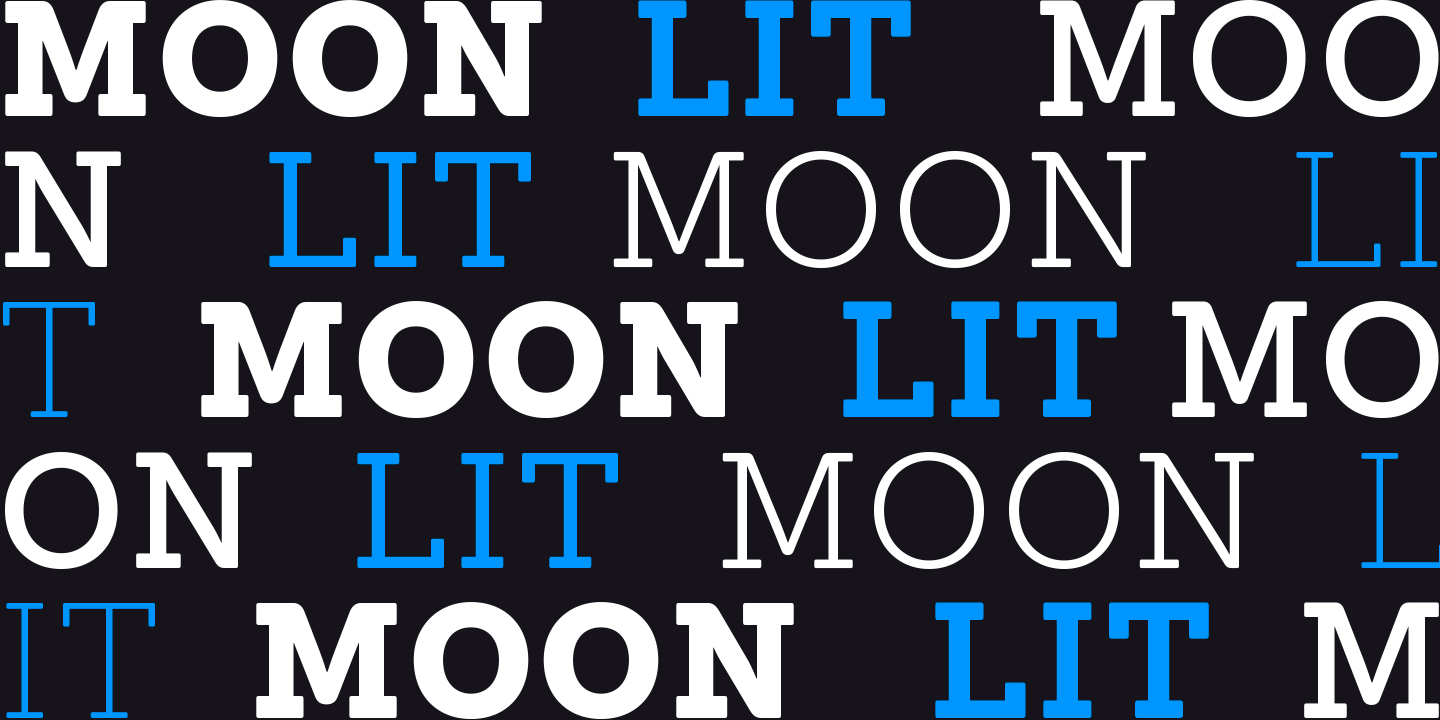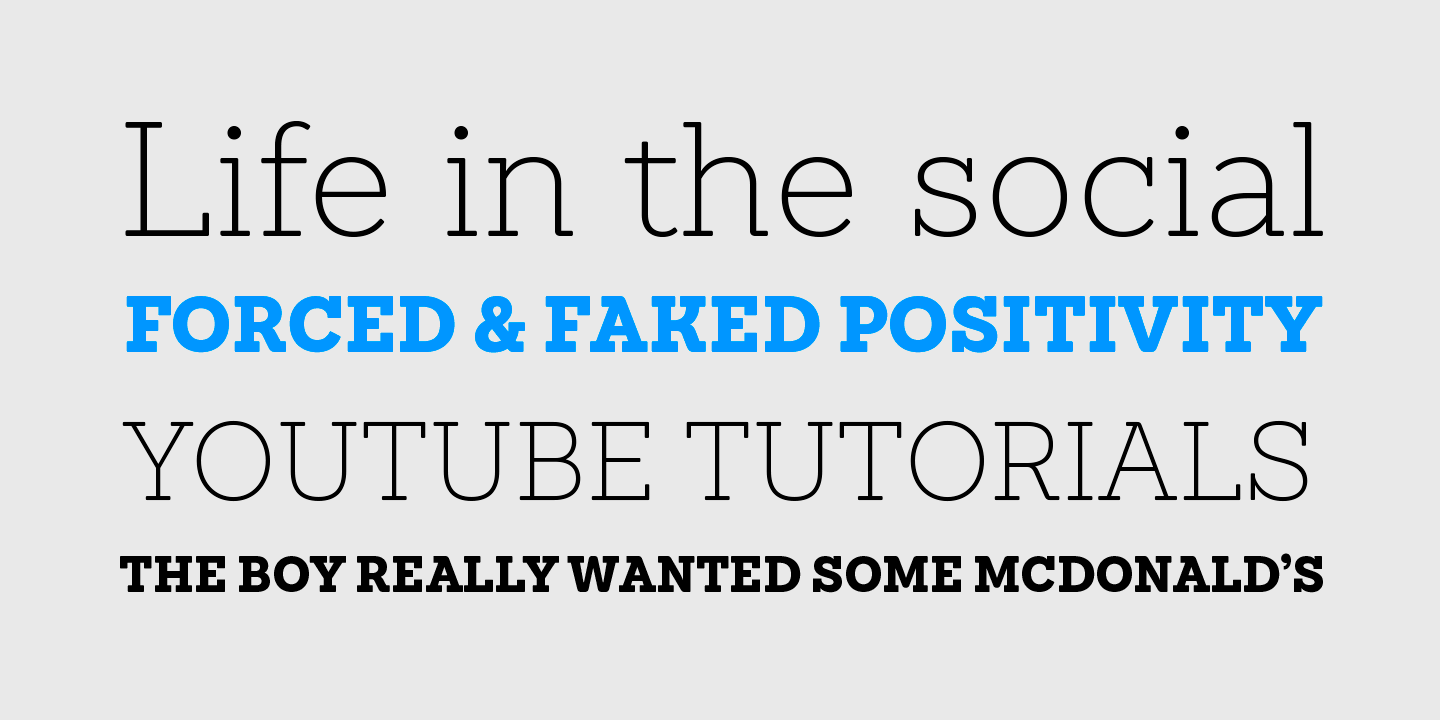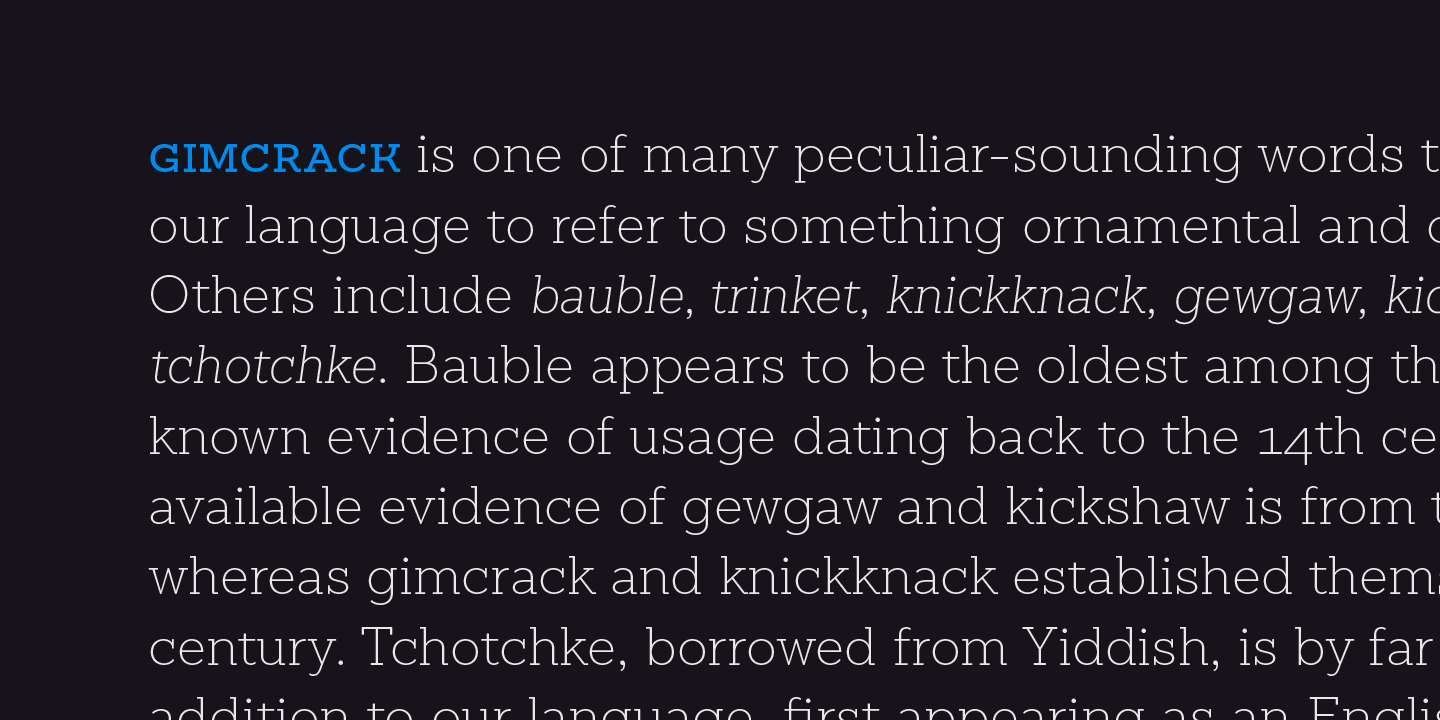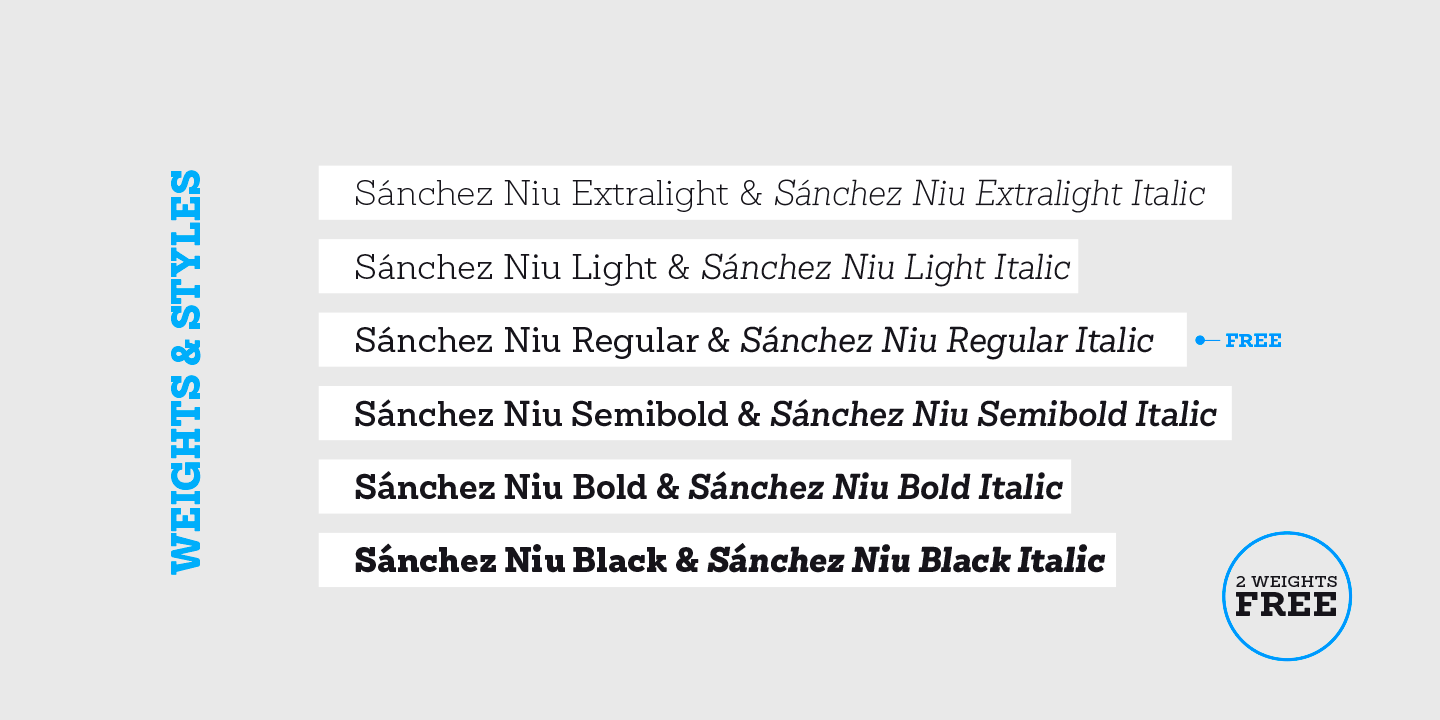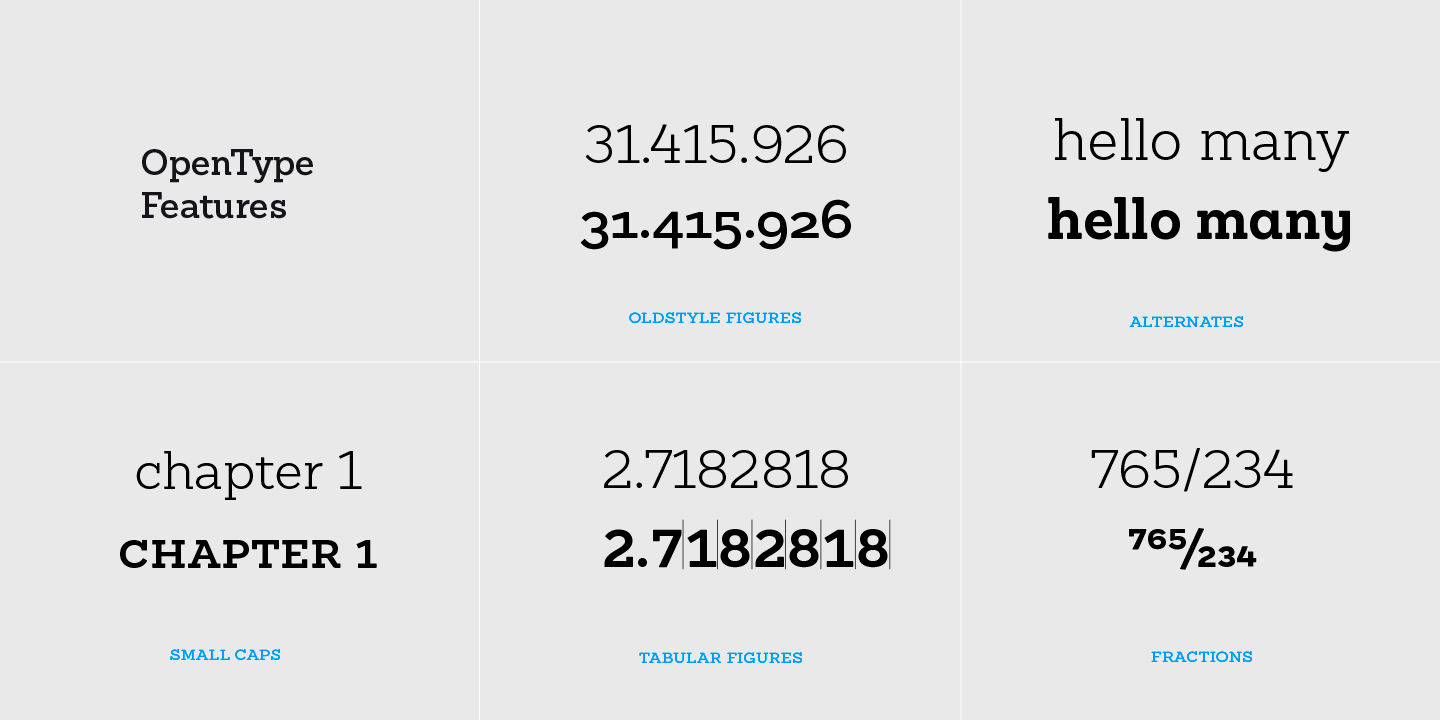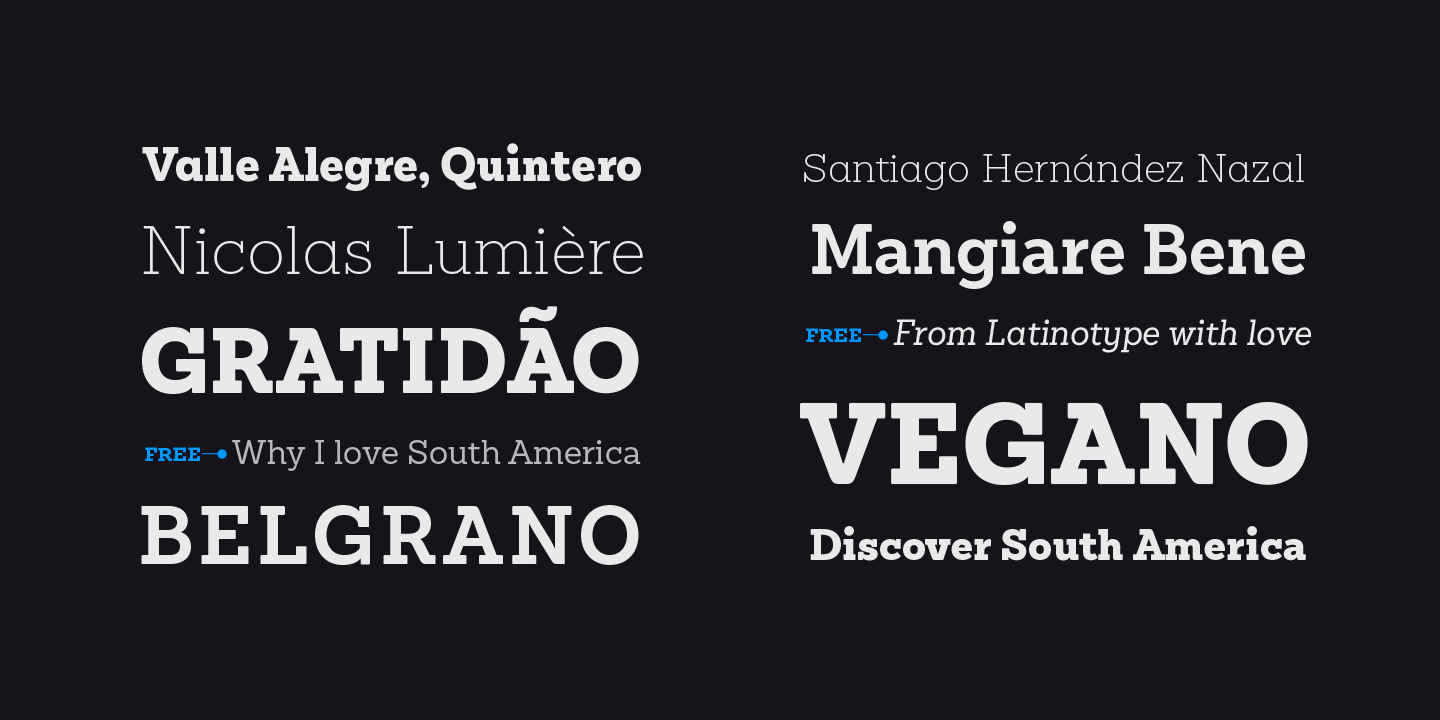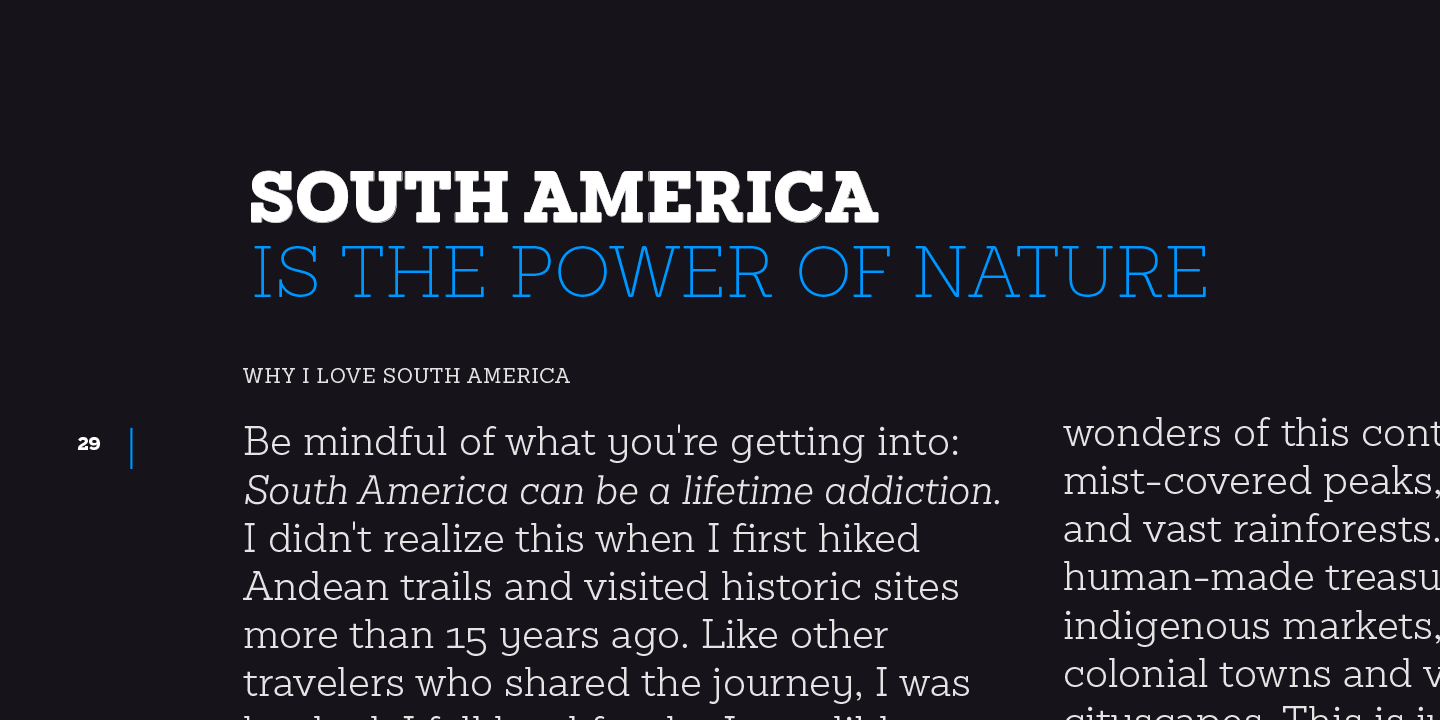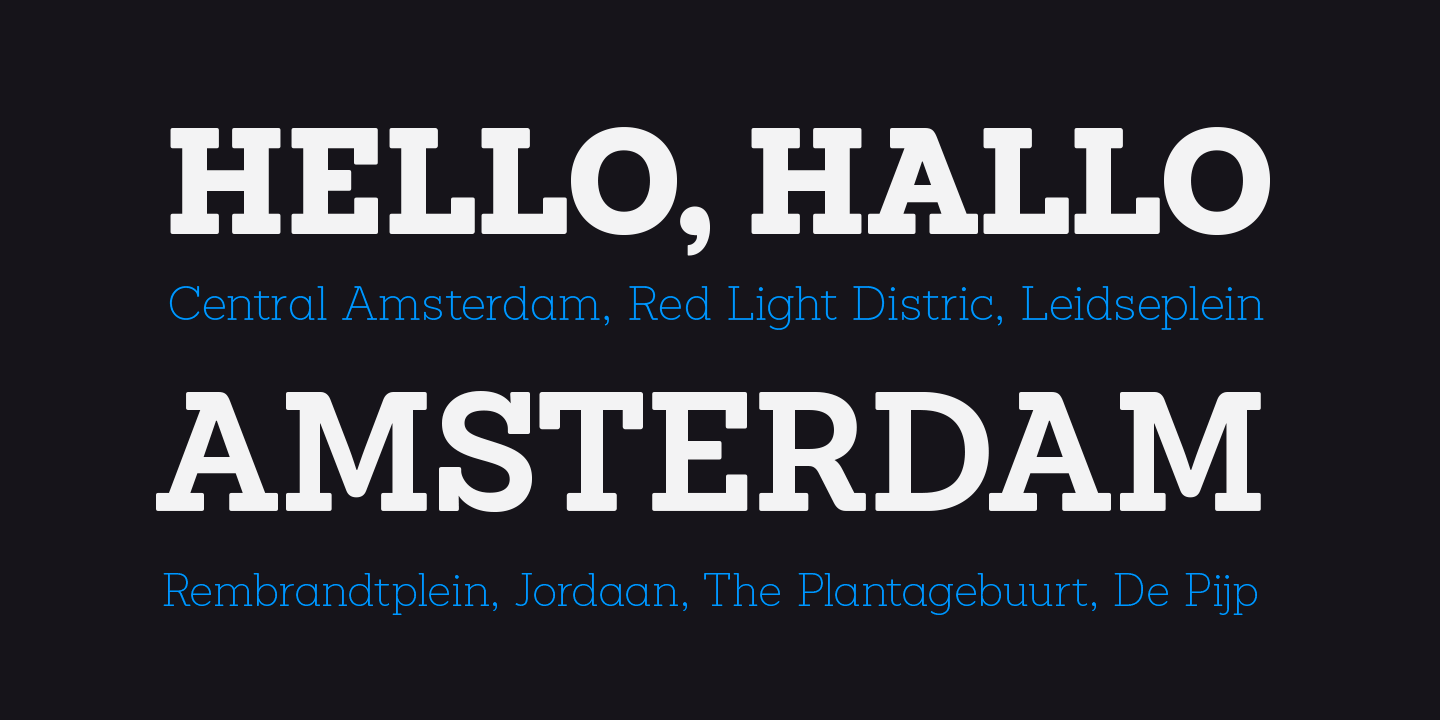
Sanchez Niu Family (12 fonts)
This new version includes improvements which allow the font to work well with longer text. These improvements have not had a major effect on the look of the font. We have adjusted the original proportions and added a number of new characters as well as OpenType features such as small caps, oldstyle figures, tabular numbers and stylistic alternates.
Sánchez Niu contains a set of 720 characters that support 219 languages. The font is well-suited for long text, headlines, logotypes, and it has been optimized for web usage.
Old-style Digits, Ligatures, Small Caps, Alternates, Fractions, Superscript, Subscript